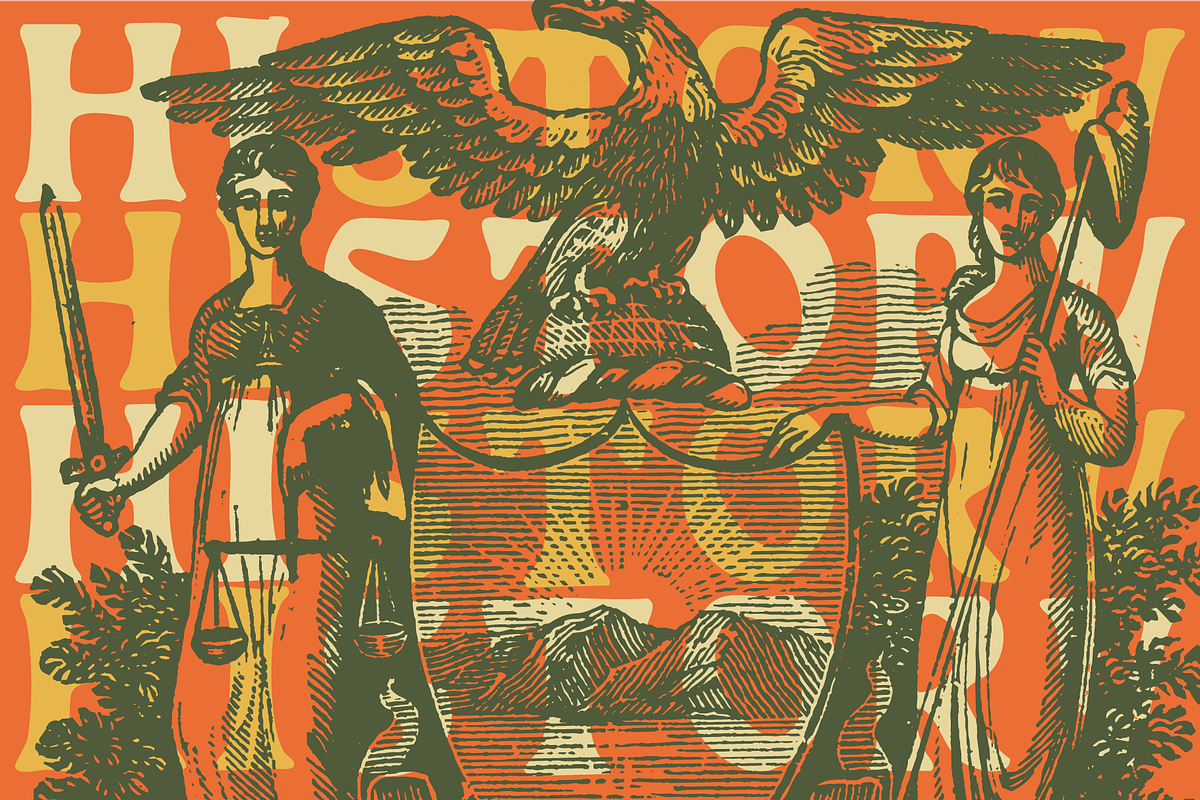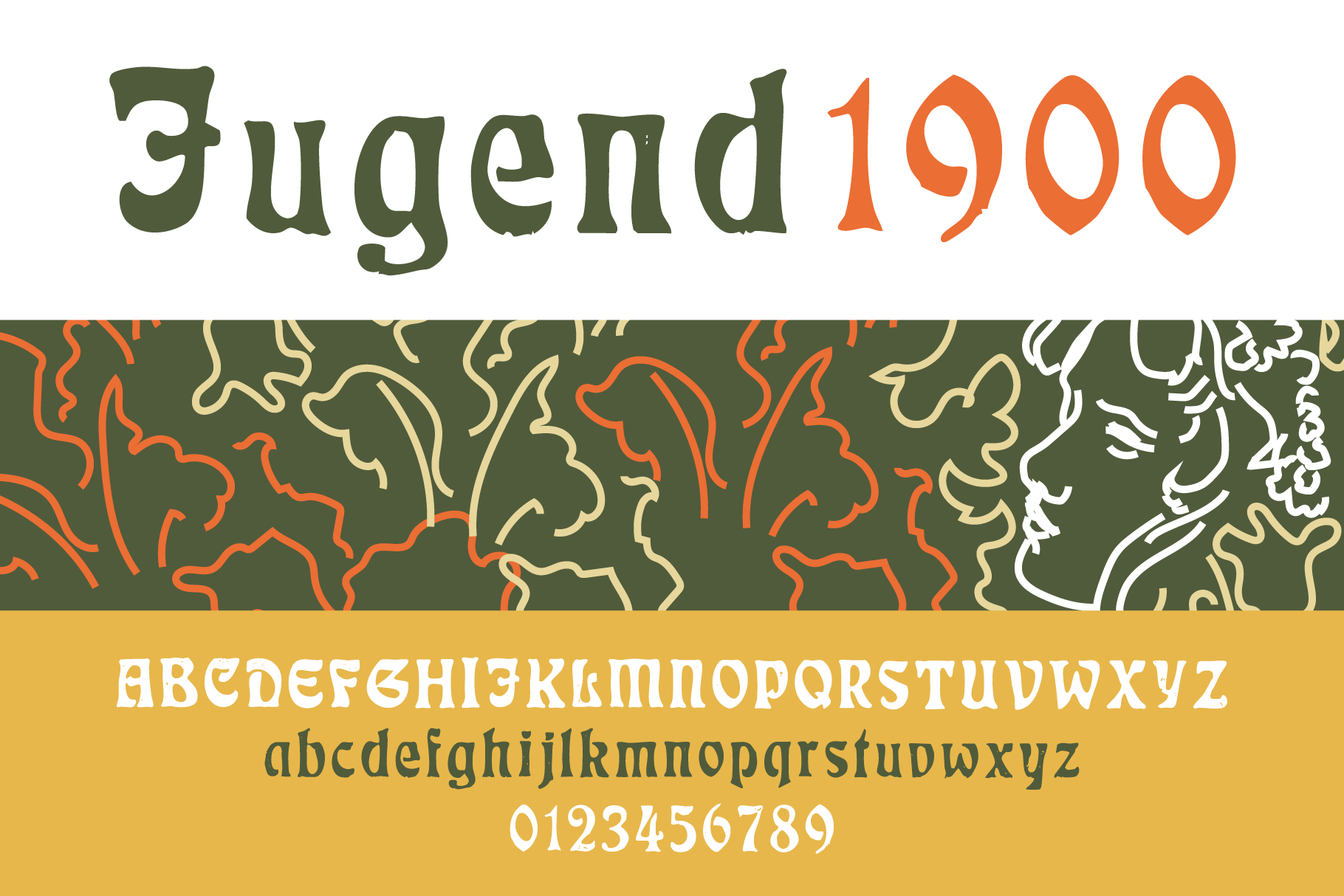
Jugend 1900 | A heritage font
I found this font in a vintage typeface book and fell in love with it... so here it is! It's based off of a scan of Eckmann, which I gave a textured twist to.
This vintage font is perfect for adding a dusty, worn-leather-couch in a fireplace heated library feel. That antique, large-bound book feel.
I use it when I need something that feels grounded in legacy, yet free-spirited and with a hint of enchantment ... when you see it, it's hard to unsee it.
I stretch it, pull it, whatever... commit all sorts of type-crimes with it, and it still looks good.
Suggested uses: Old book covers, posters, history things and legacy branding